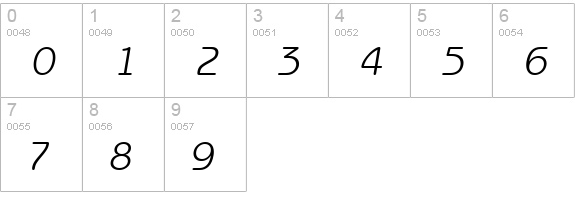
Express Deco GothicLight SSi Normal is the standard, neutral variant in the Express typeface family \xE2\x80\x94 well suited to general body text, paragraphs, and standard typographic work.
Express Deco GothicLight SSi Normal font is a stunning and sophisticated typeface that exudes elegance and modernity. Its sleek lines and intricate details make it perfect for a wide range of design projects, from branding to editorial design. The unique blend of art deco and gothic influences gives this font a timeless quality that will make your work stand out. And the best part? Express Deco GothicLight SSi Normal font is available for free download at FontsMarket.com. Whether you're a designer looking to add a touch of sophistication to your projects or a business owner in need of a stylish font for your branding, this font is sure to exceed your expectations. Download it today and elevate your designs with the beauty of Express Deco GothicLight SSi Normal font.